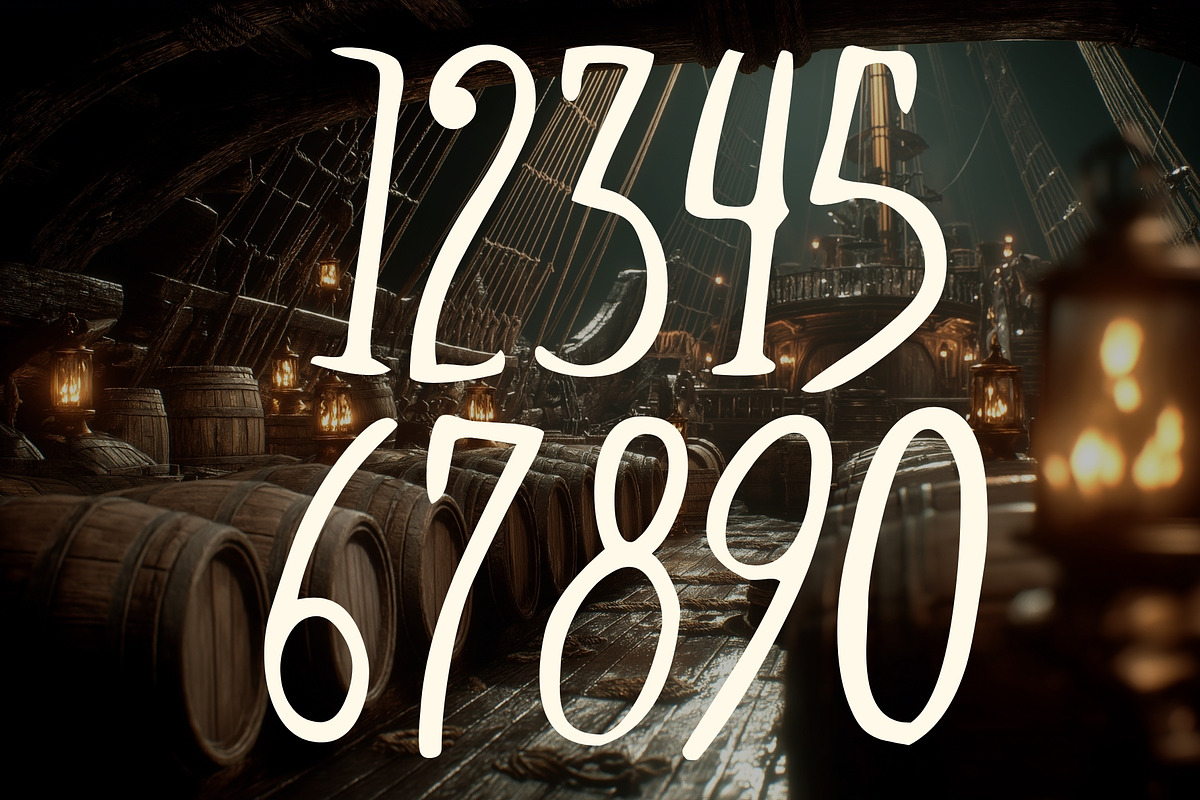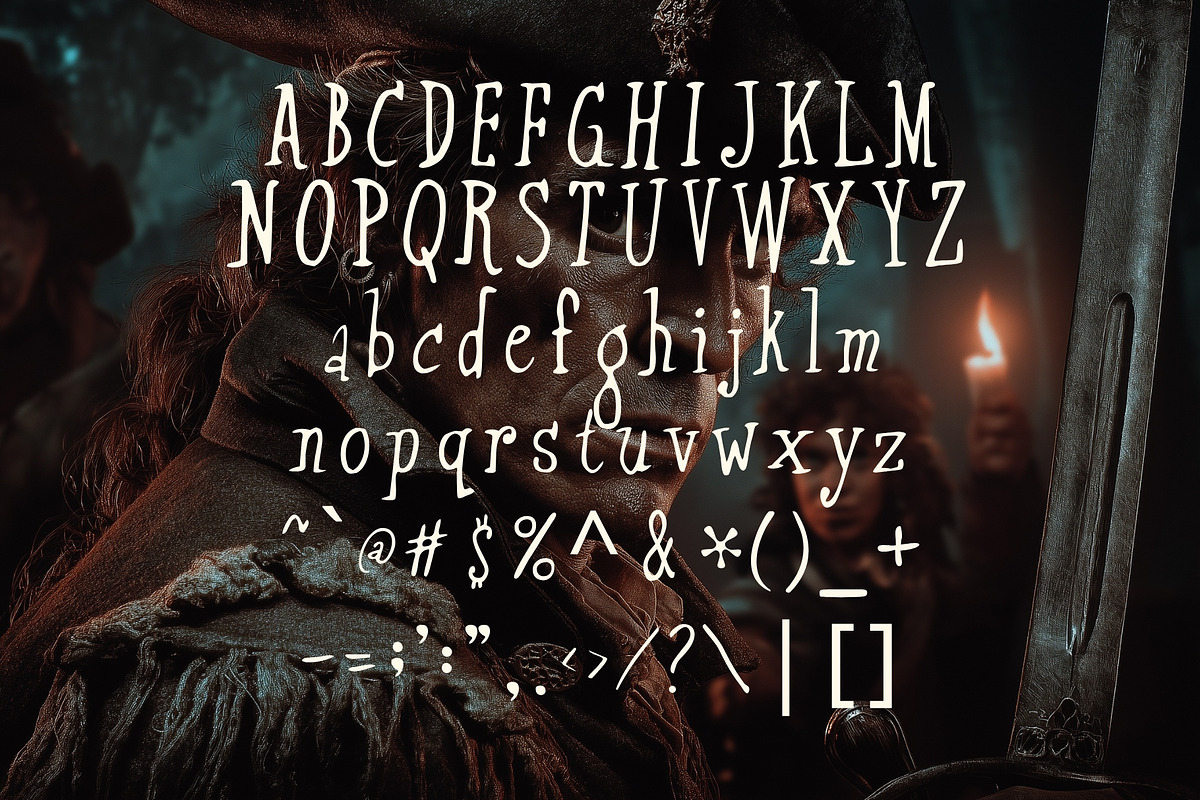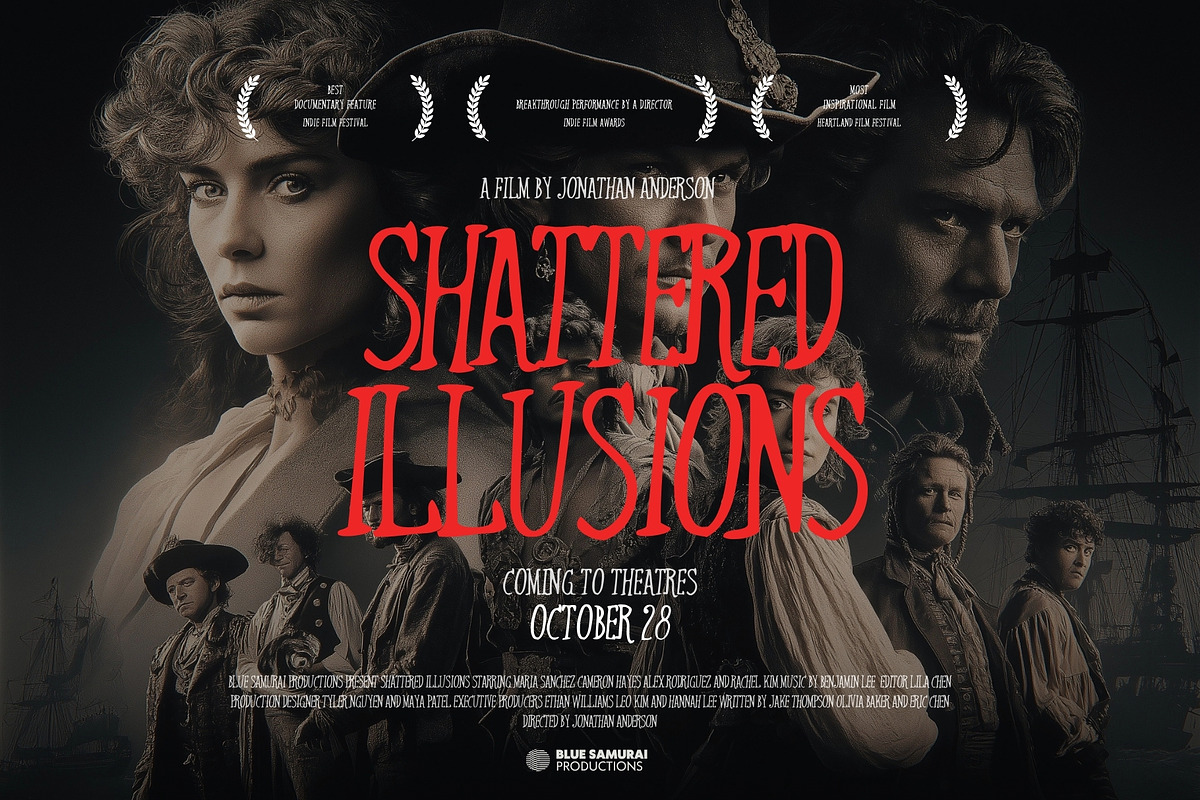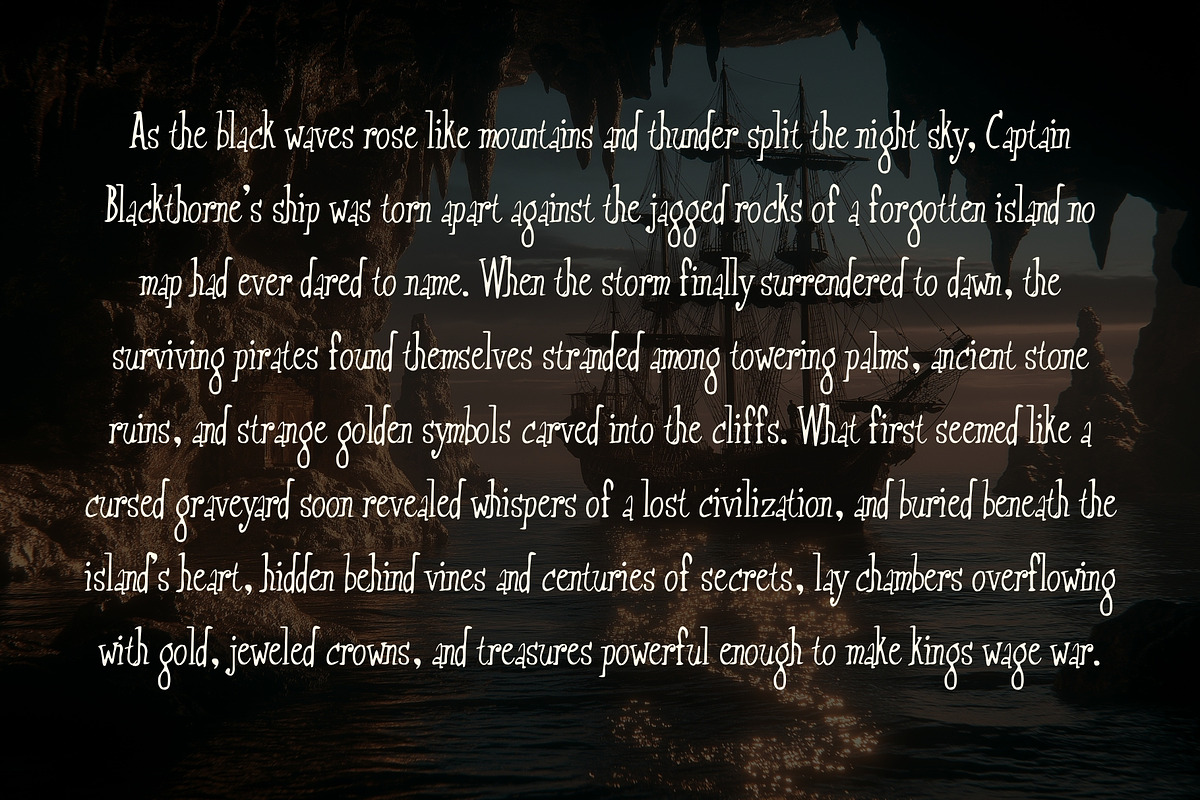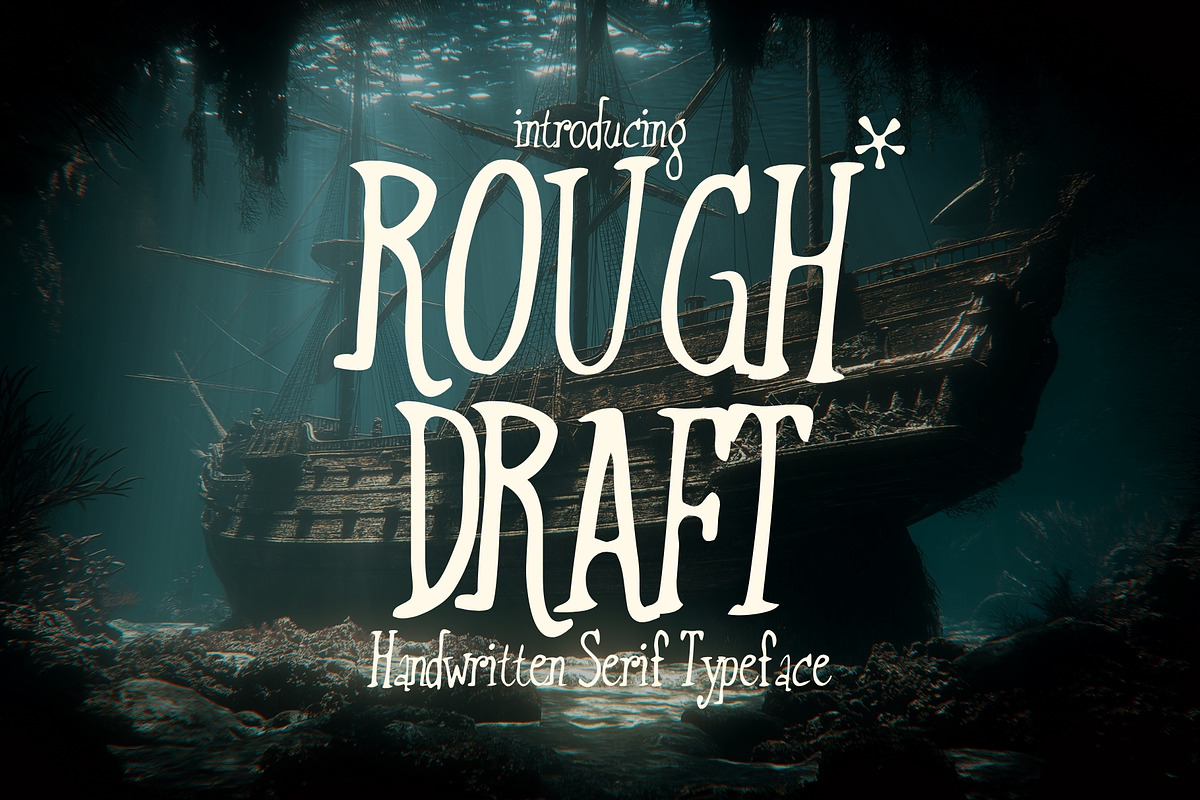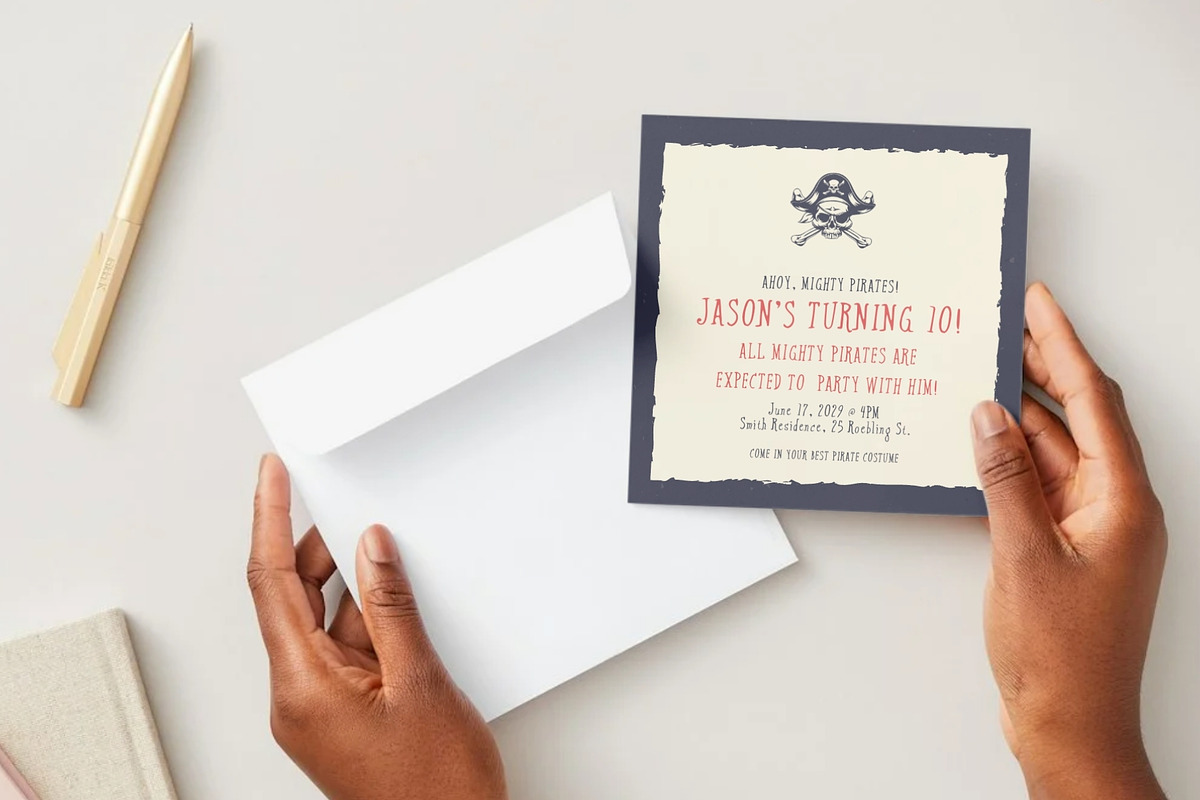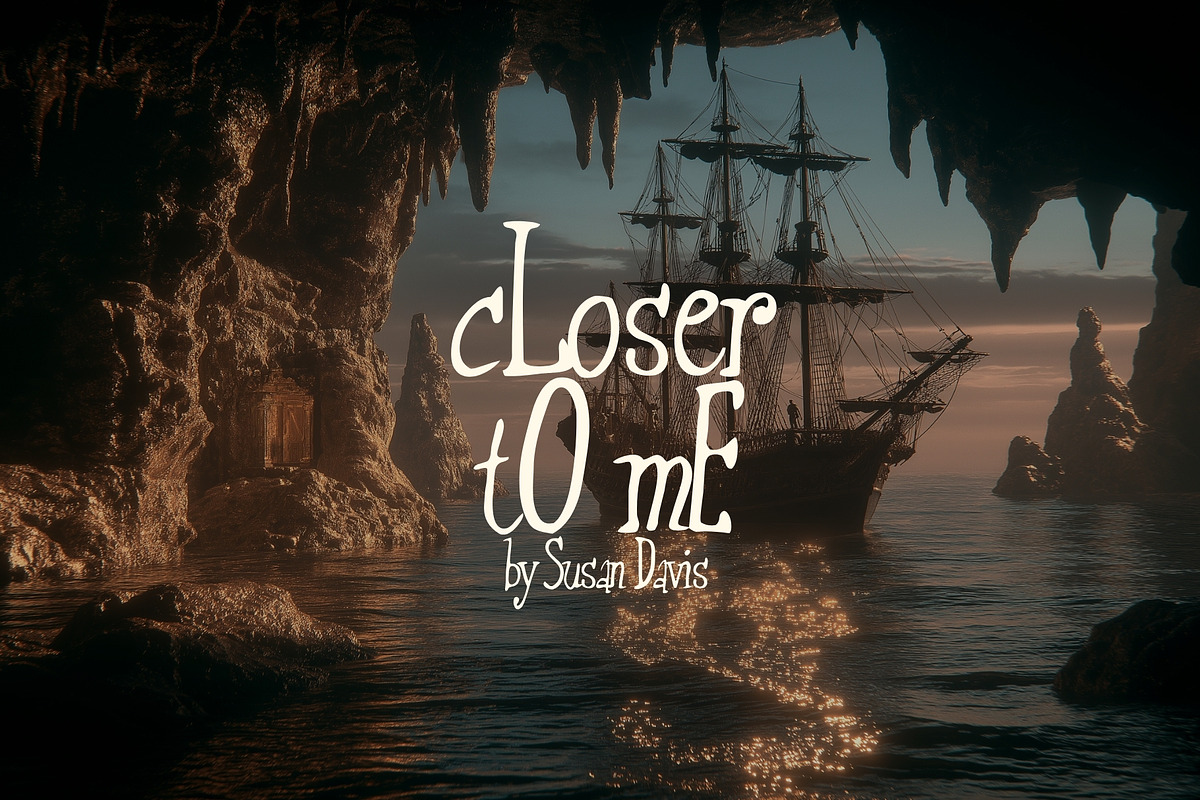
Rough Draft - Organic Human Serif
Rough Draft is a handwritten serif typeface full of personality and authenticity. It’s not about perfection — it’s about character, warmth, and a human touch. Each letter feels crafted by hand, bringing an organic, imperfect charm that stands out in modern designs.
Ideal for designers who want to add personality and story to their work, Rough Draft works beautifully on posters, branding, packaging, social media, and anywhere you want typography to feel real and approachable. Its rugged yet readable forms give your designs a distinct, handcrafted vibe.
Best for:
- Handcrafted logos & branding
- Posters, invitations & greeting cards
- Packaging & product labels
- Social media graphics
- Editorial layouts & book covers
- Any design needing authentic, imperfect charm